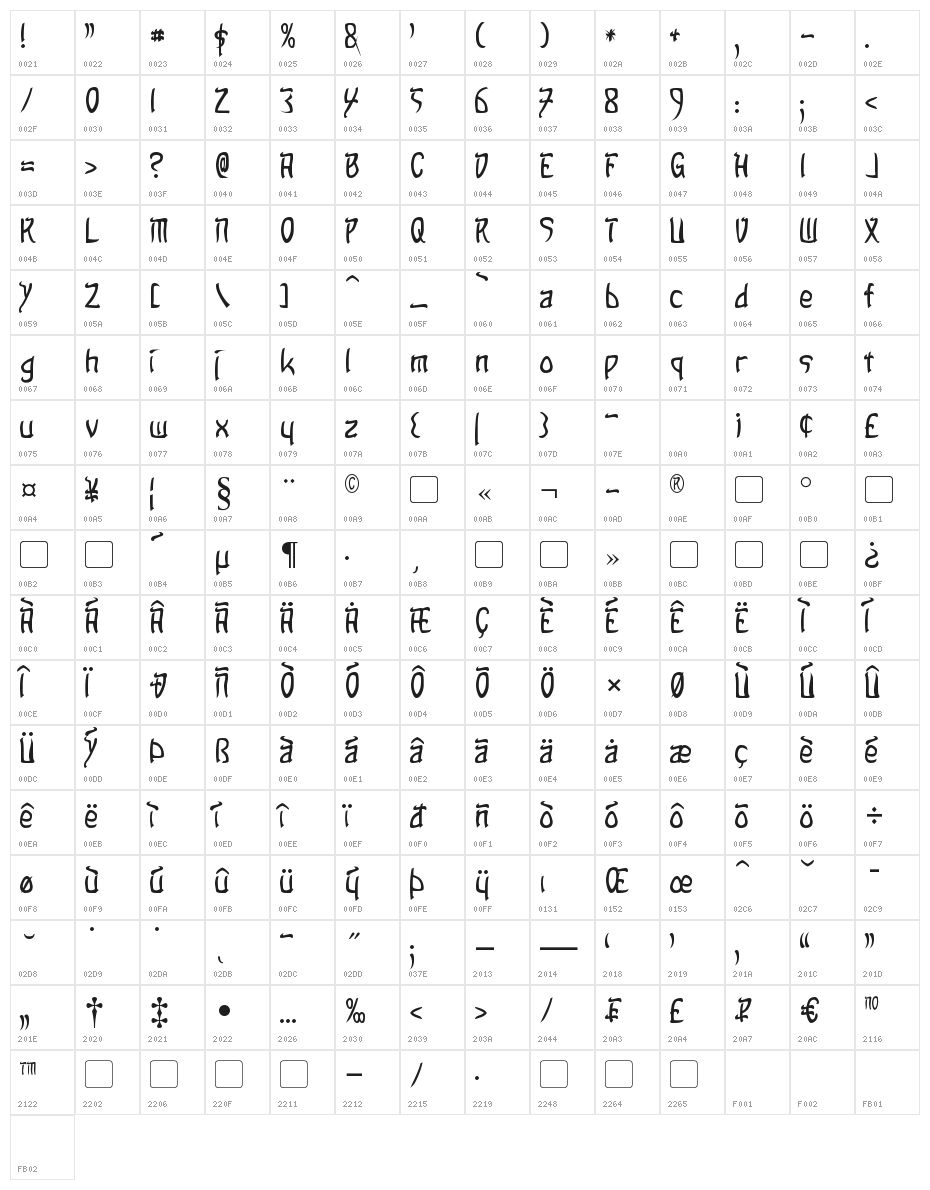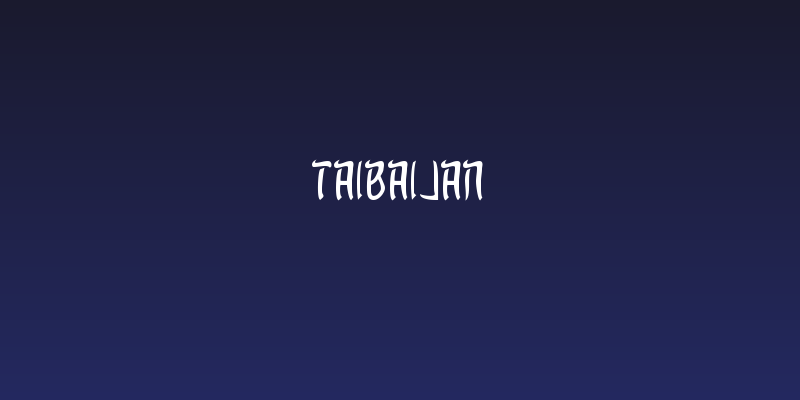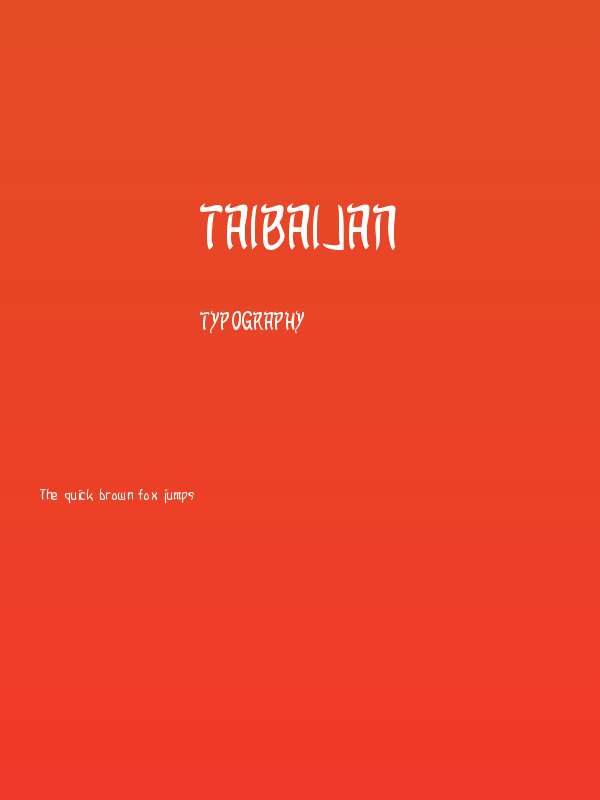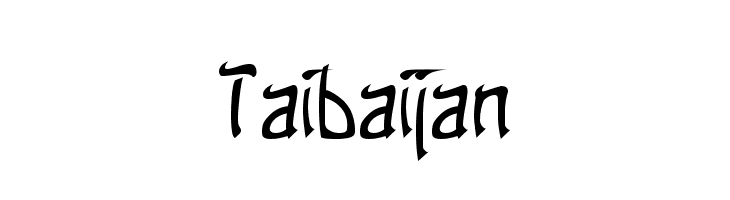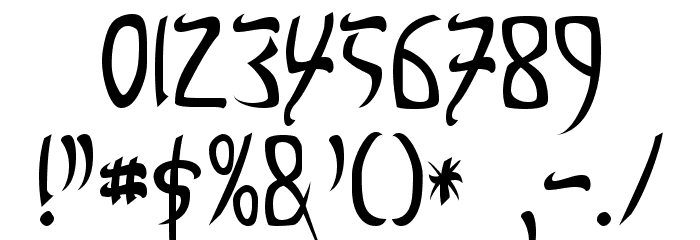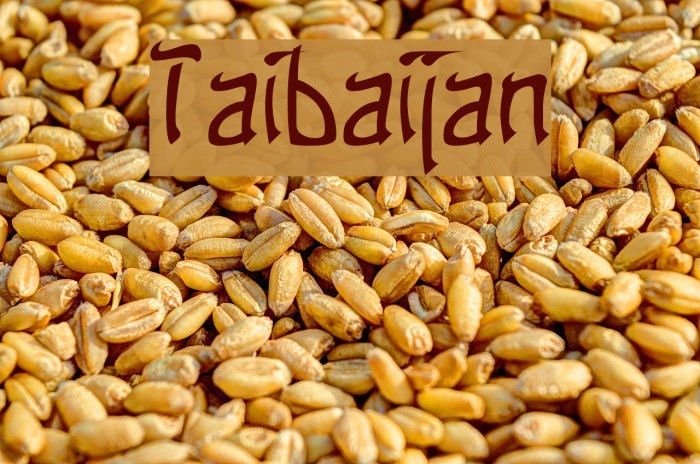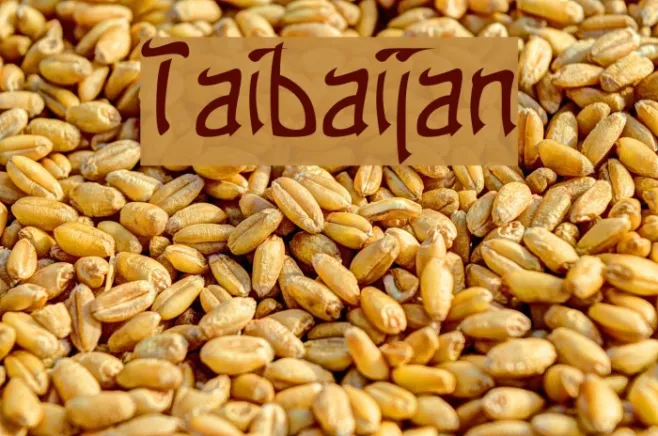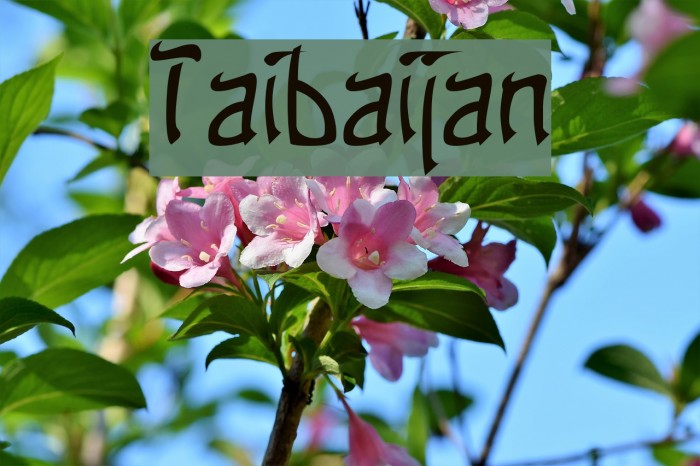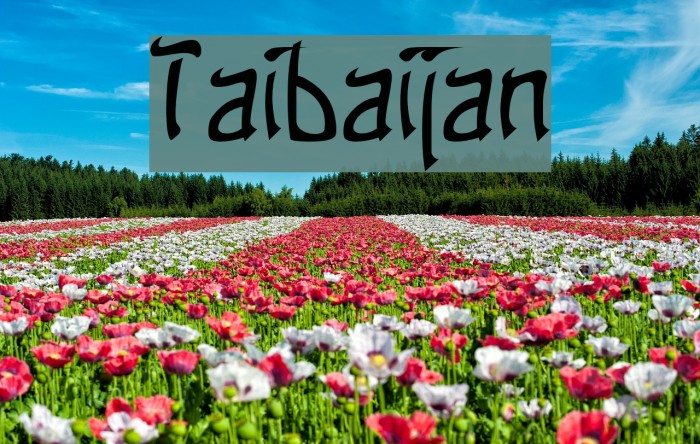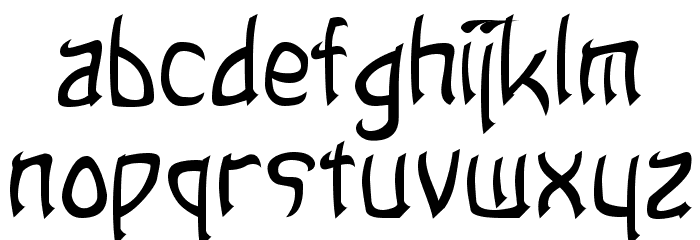
Taibaijan Font
Taibaijan Description
This font features a bold and dynamic style with a unique, artistic flair. The characters are crafted with a sense of movement and energy, showcasing sharp, angular lines and exaggerated curves. The uppercase letters are particularly striking, with a strong presence and distinctive shapes that make them stand out. The lowercase letters maintain the same energetic style, providing a cohesive look across the font. Numbers and special characters are designed with the same attention to detail, ensuring consistency throughout. This font is perfect for projects that require a bold, artistic touch.